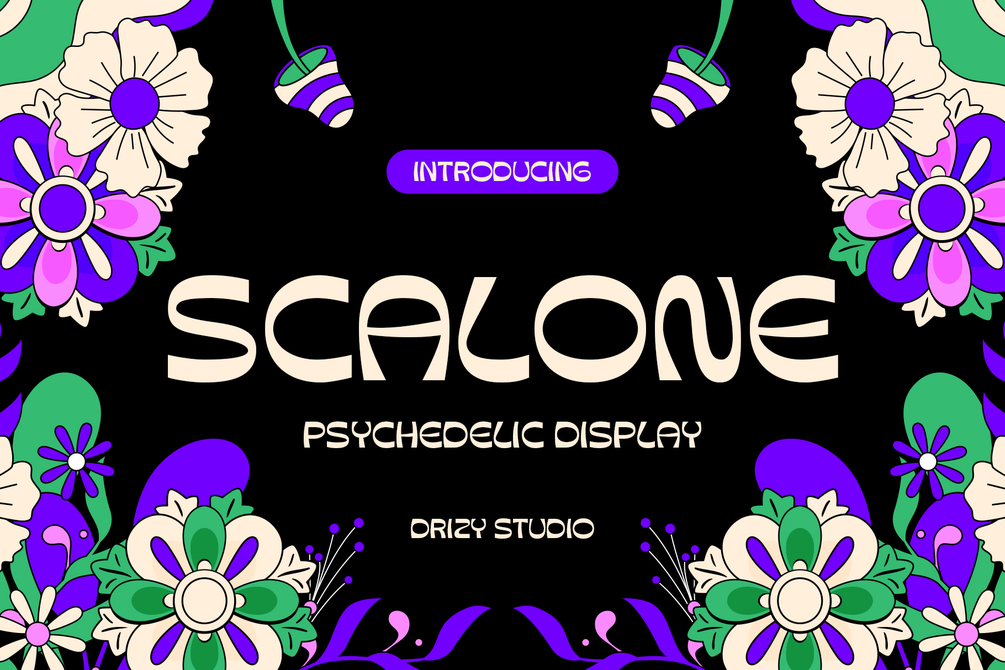
Scalone – Psychedelic Display Font
Scalone – Psychedelic Display Font is a vibrant and captivating font that effortlessly blends the bold, whimsical charm of 1960s psychedelic art with a fresh, contemporary twist. Scalone is more than just a typeface; it’s a celebration of creativity, individuality, and the daring spirit of those who defy convention. With its playful curves, exaggerated letterforms, and striking patterns, this font invites your designs to embrace an expressive, free-spirited aesthetic. Scalone stands out with its energy and flair. Let Scalone infuse your projects with an unforgettable sense of boldness and originality.